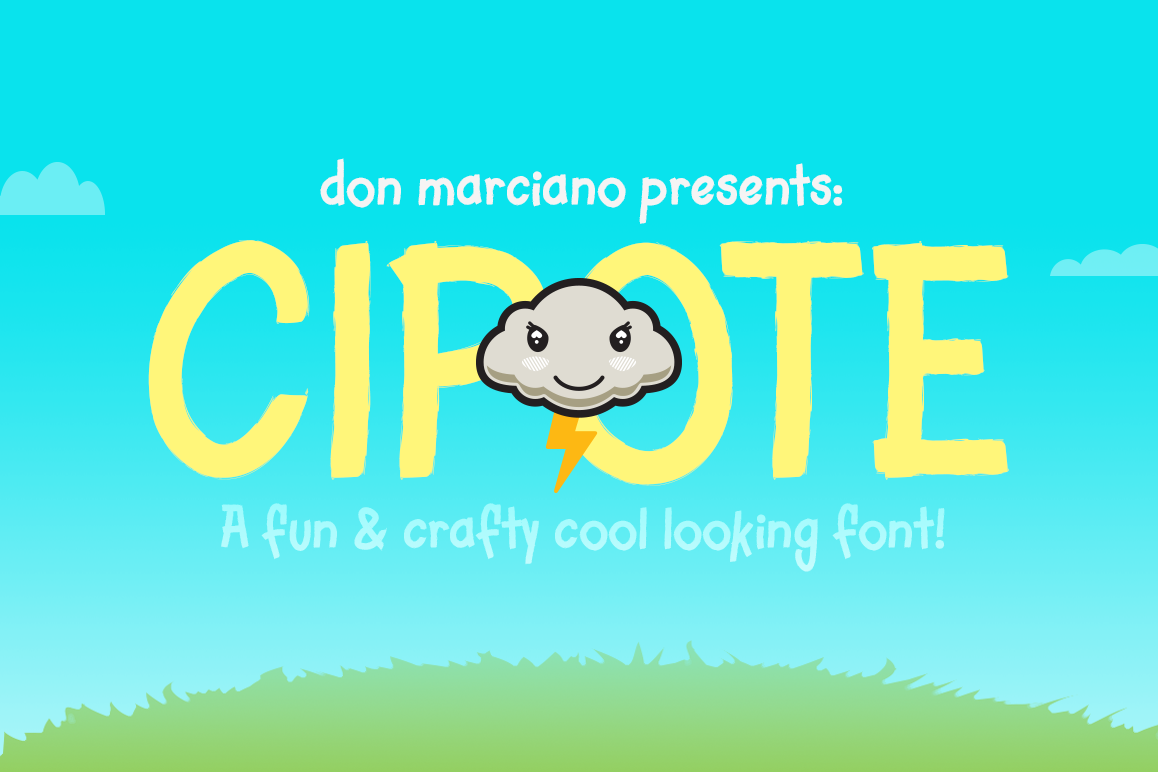
Cipote
Cipote is a fun and crafty cool-looking font created for my son, with subtle rough edges to show clearly the strong attention to detail of that hand-crafted style, made with lots and lots of heart; inspired initially by the chalkiness and roughness of the handmade letters on chalkboards, here comes a fun typeface that brings together the cool style of the crafty and scrappy look of kids playing in the schoolyard.